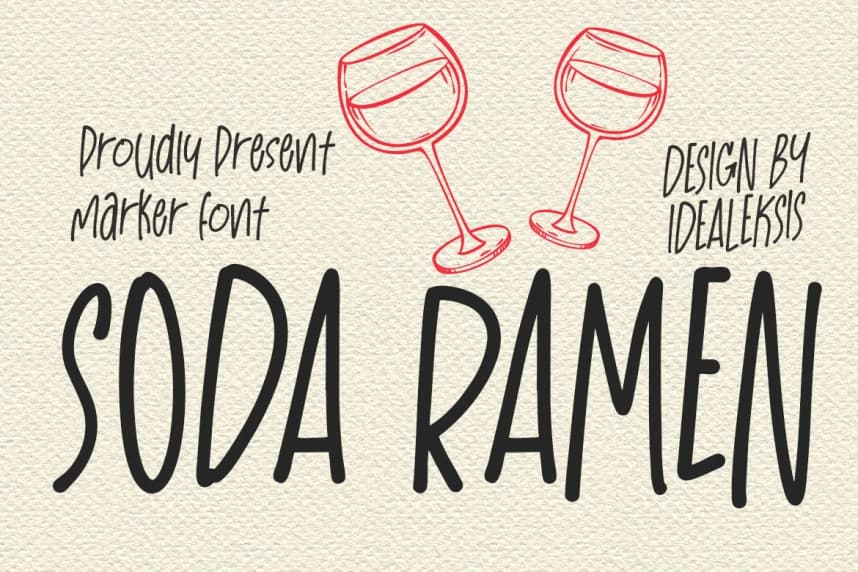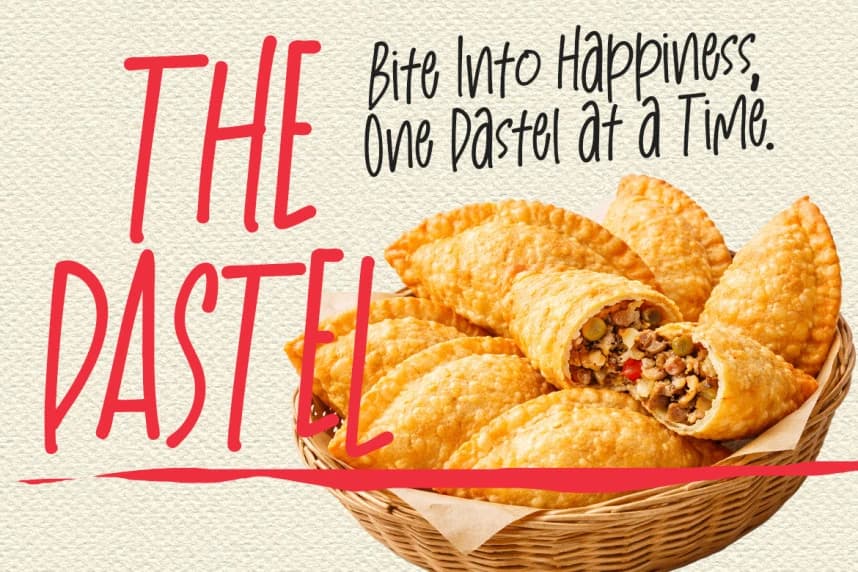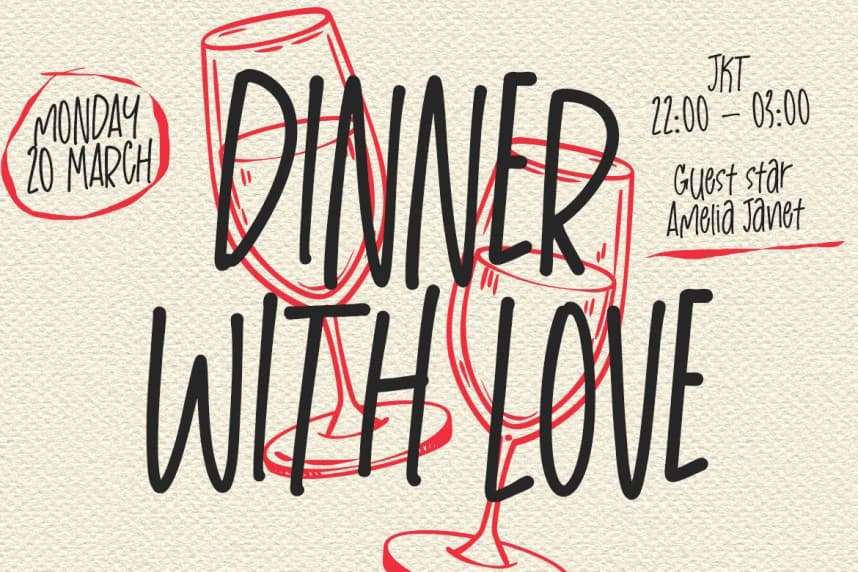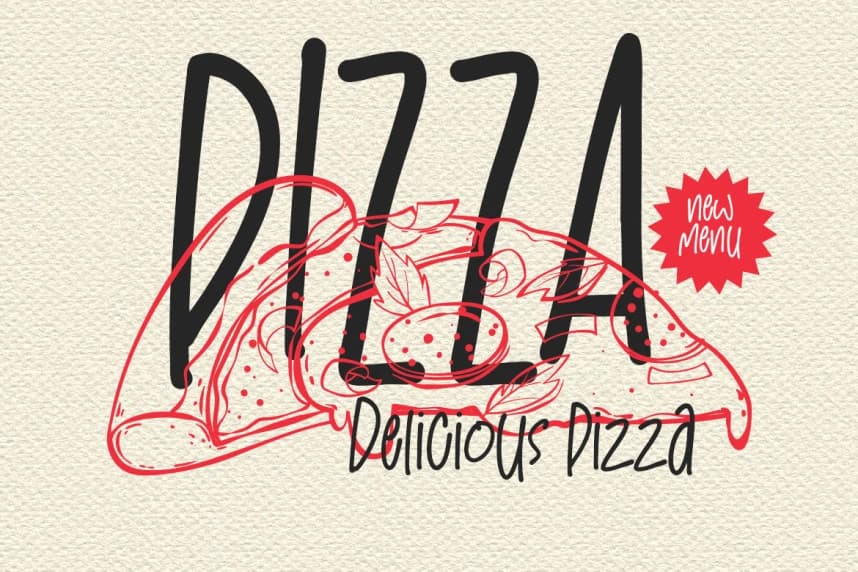
Soda Ramen Handwritten Font
Soda Ramen Handwritten Font features tall, narrow letterforms with a distinct hand-drawn marker aesthetic. The strokes maintain a consistent medium weight with soft, rounded terminals that evoke a friendly and approachable vibe. Its slightly irregular baseline and organic curves suggest a spontaneou
Soda Ramen Handwritten Font features tall, narrow letterforms with a distinct hand-drawn marker aesthetic. The strokes maintain a consistent medium weight with soft, rounded terminals that evoke a friendly and approachable vibe. Its slightly irregular baseline and organic curves suggest a spontaneous